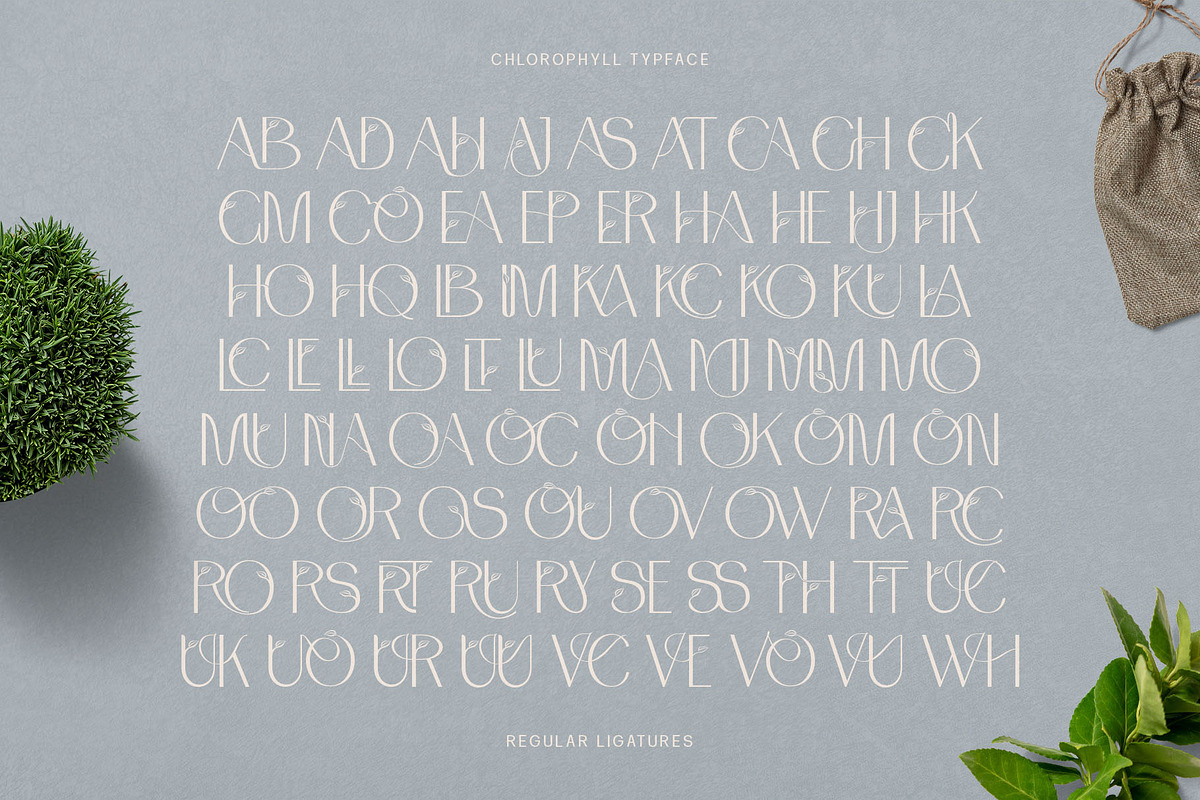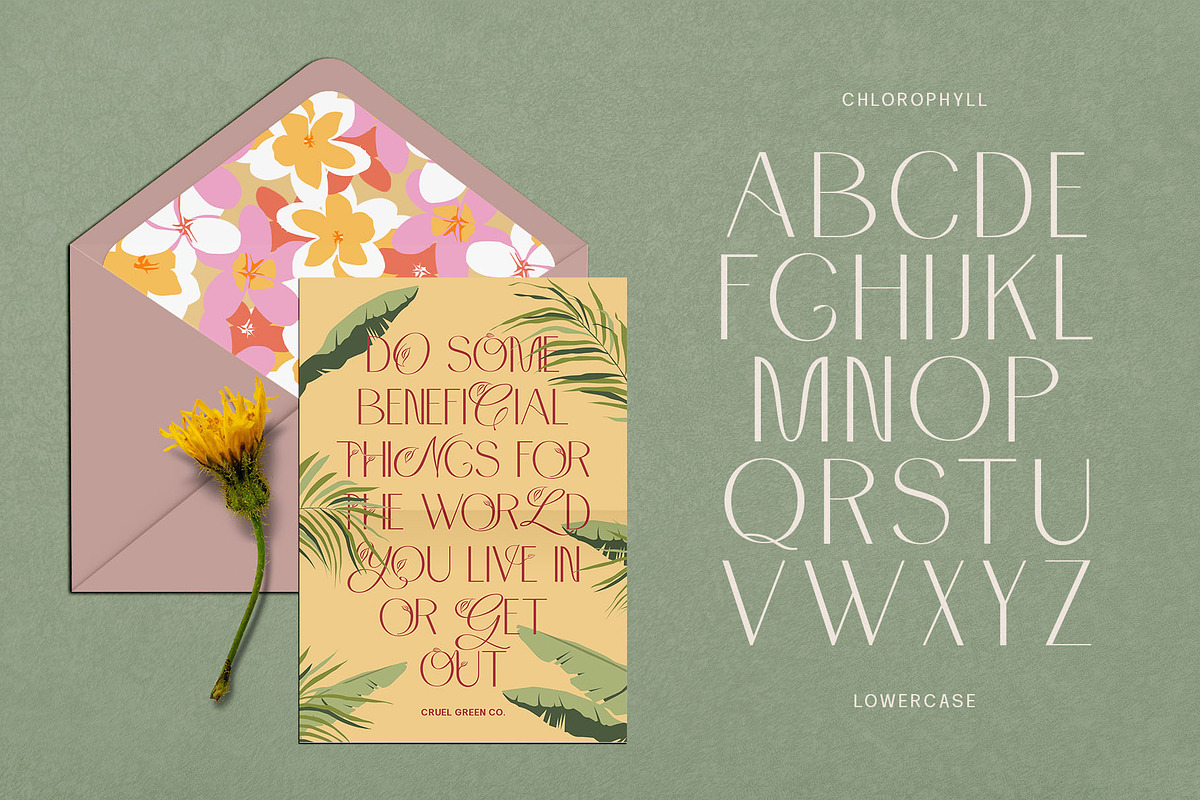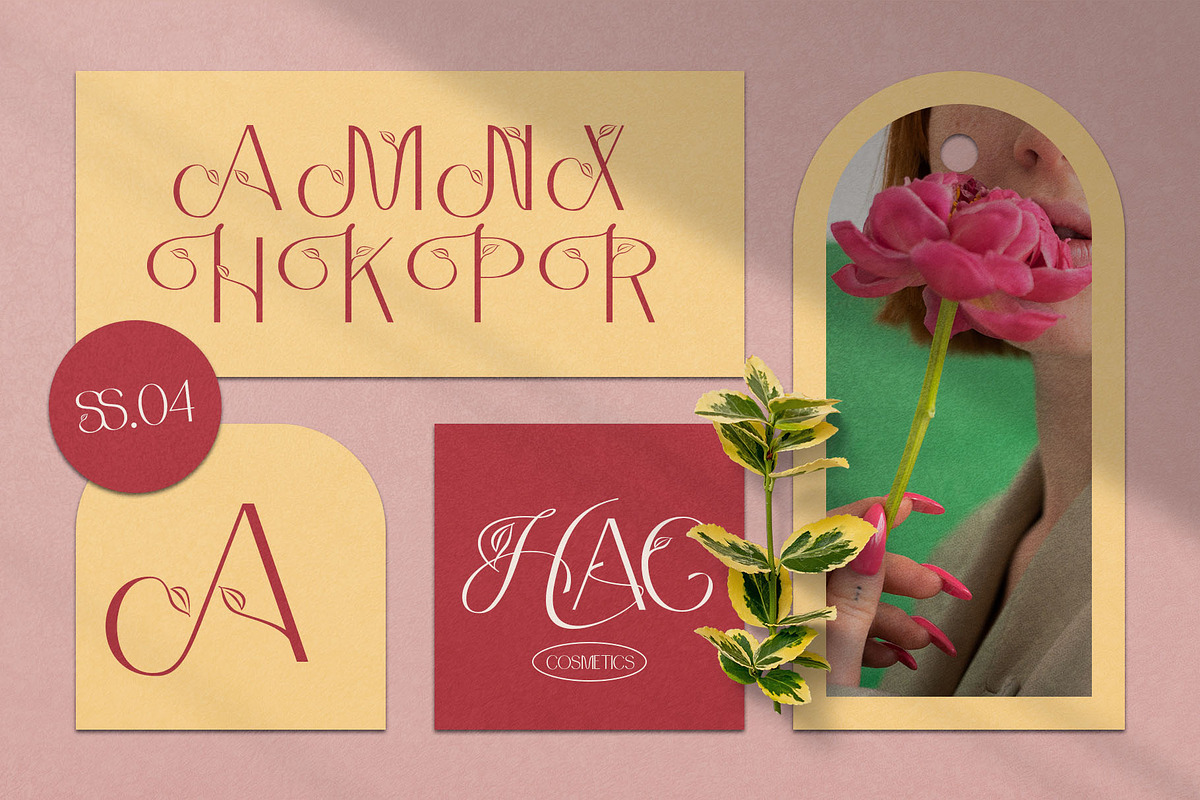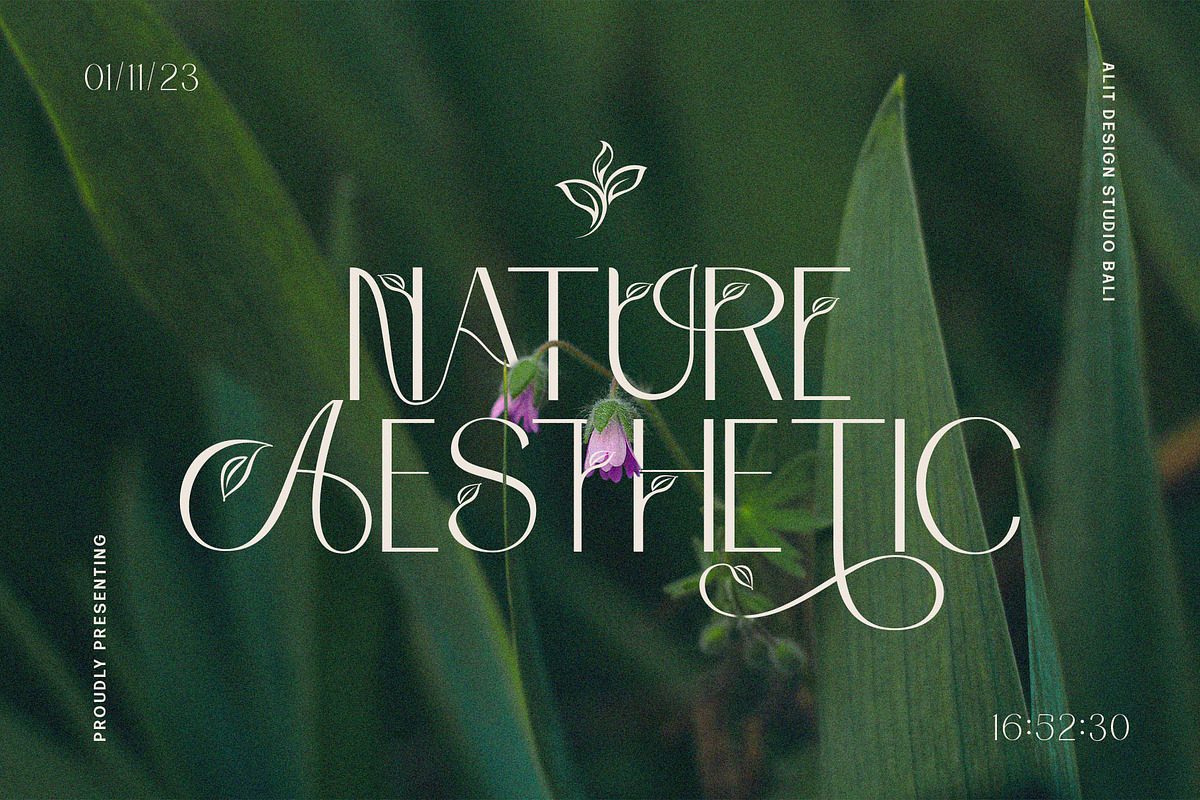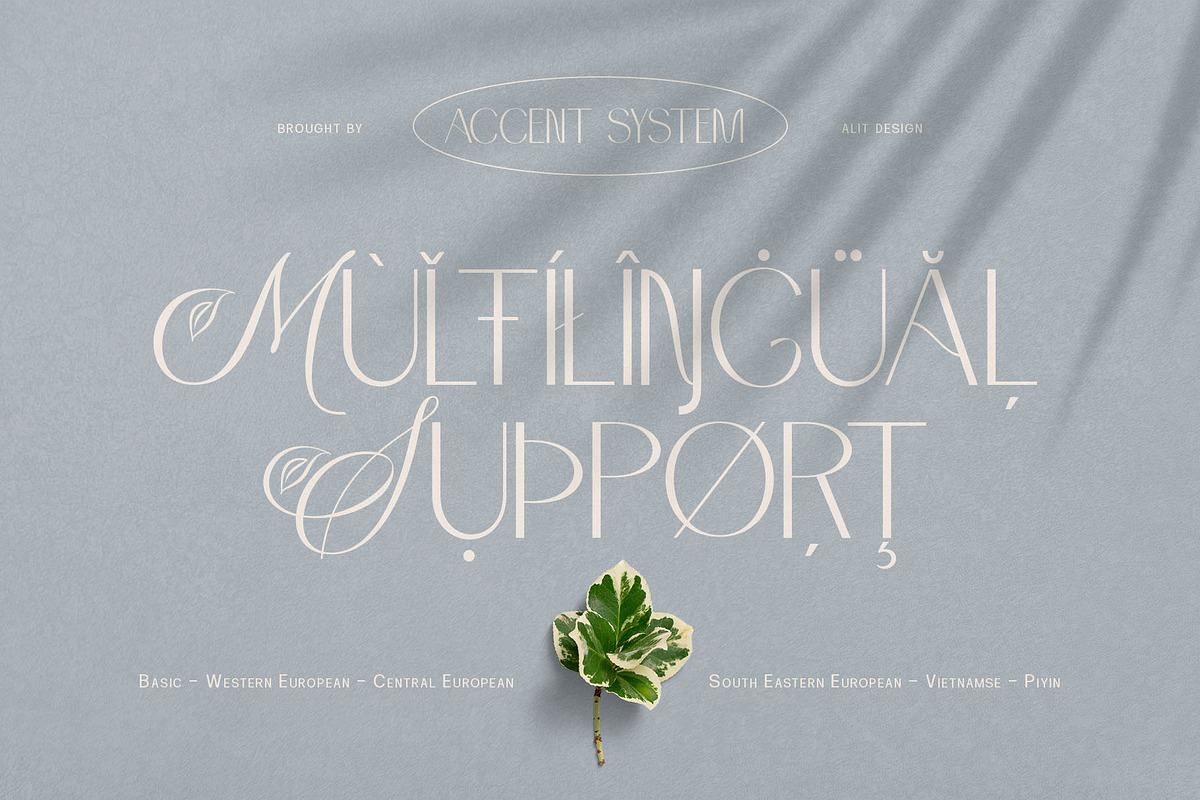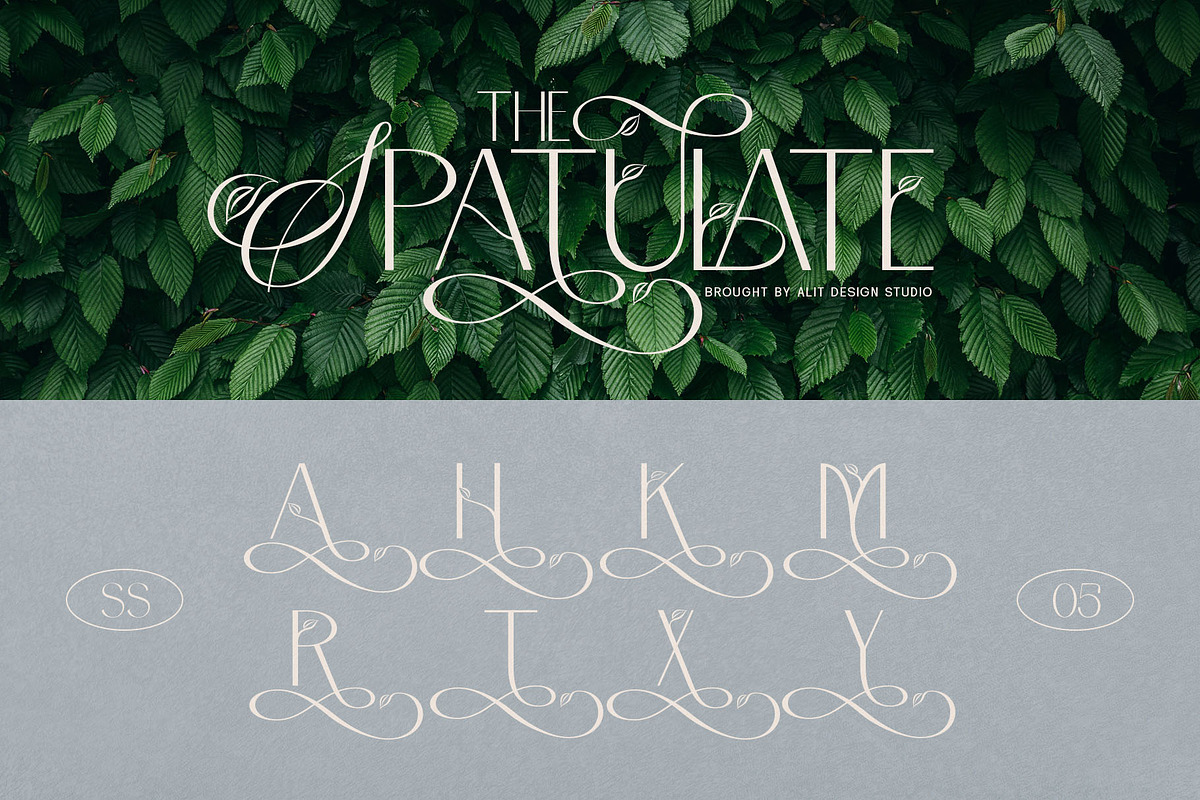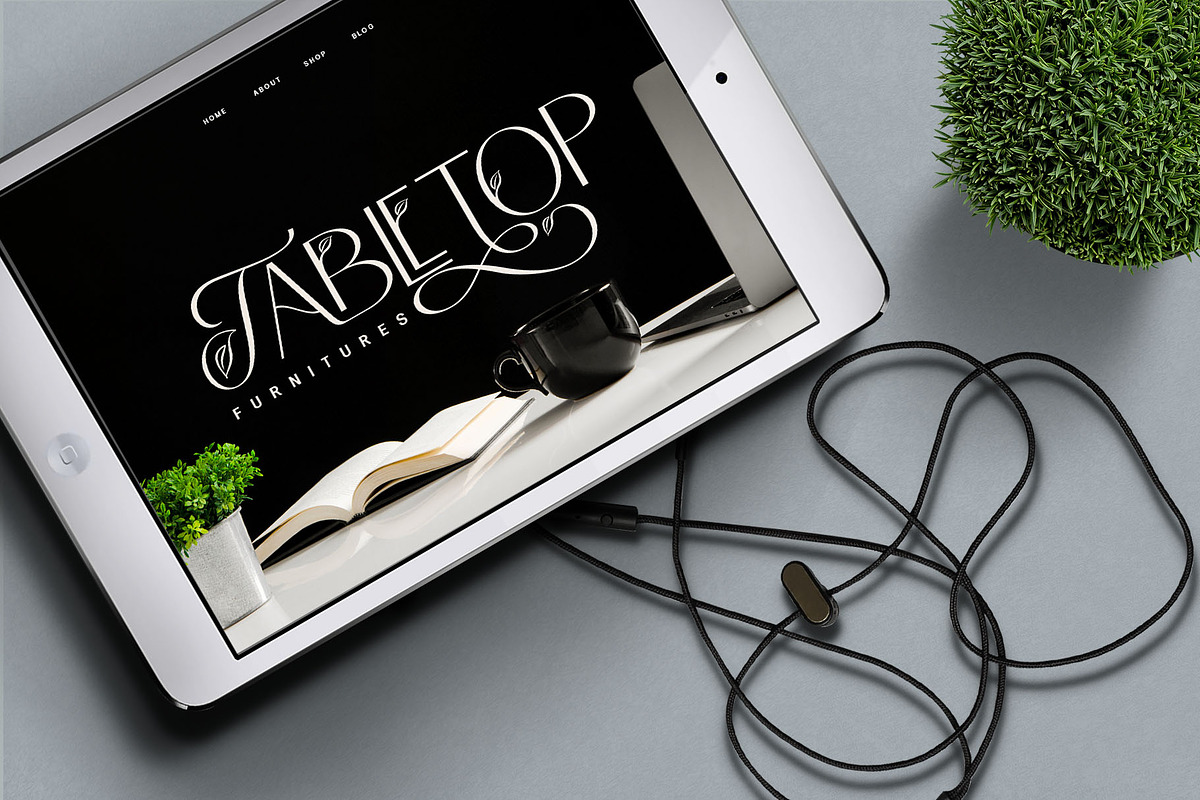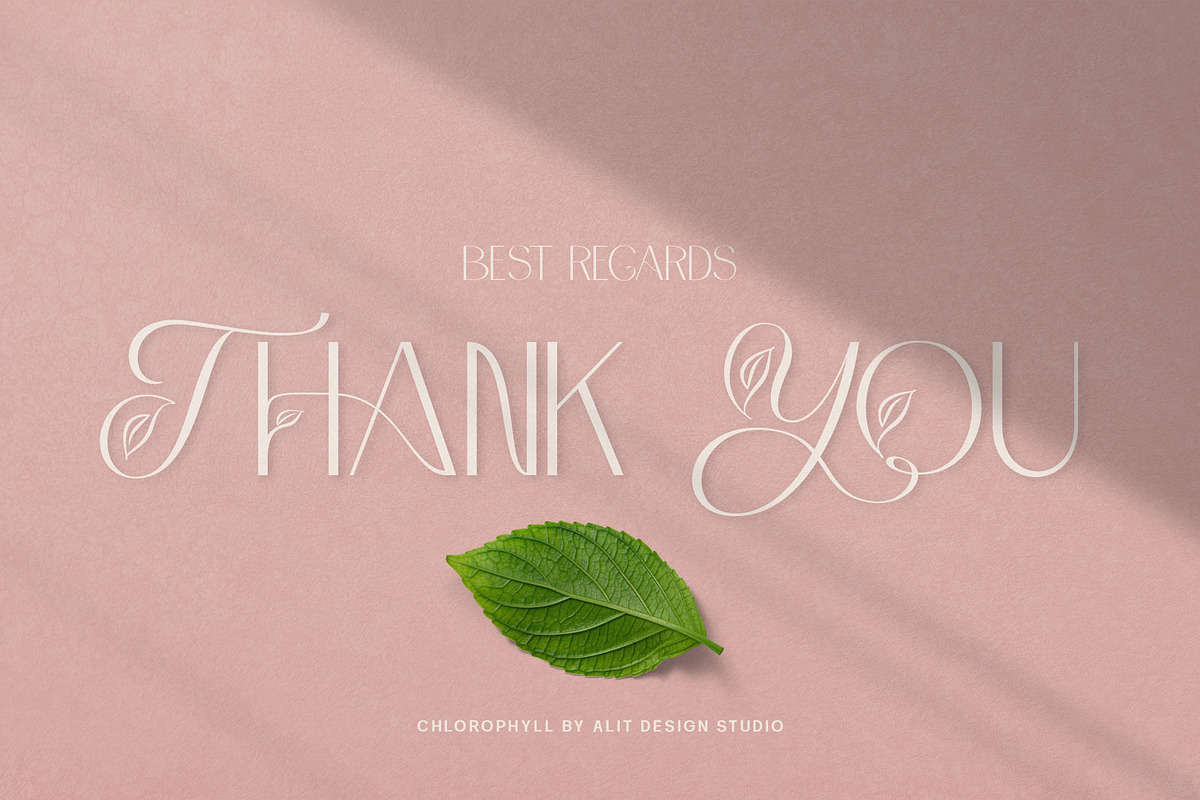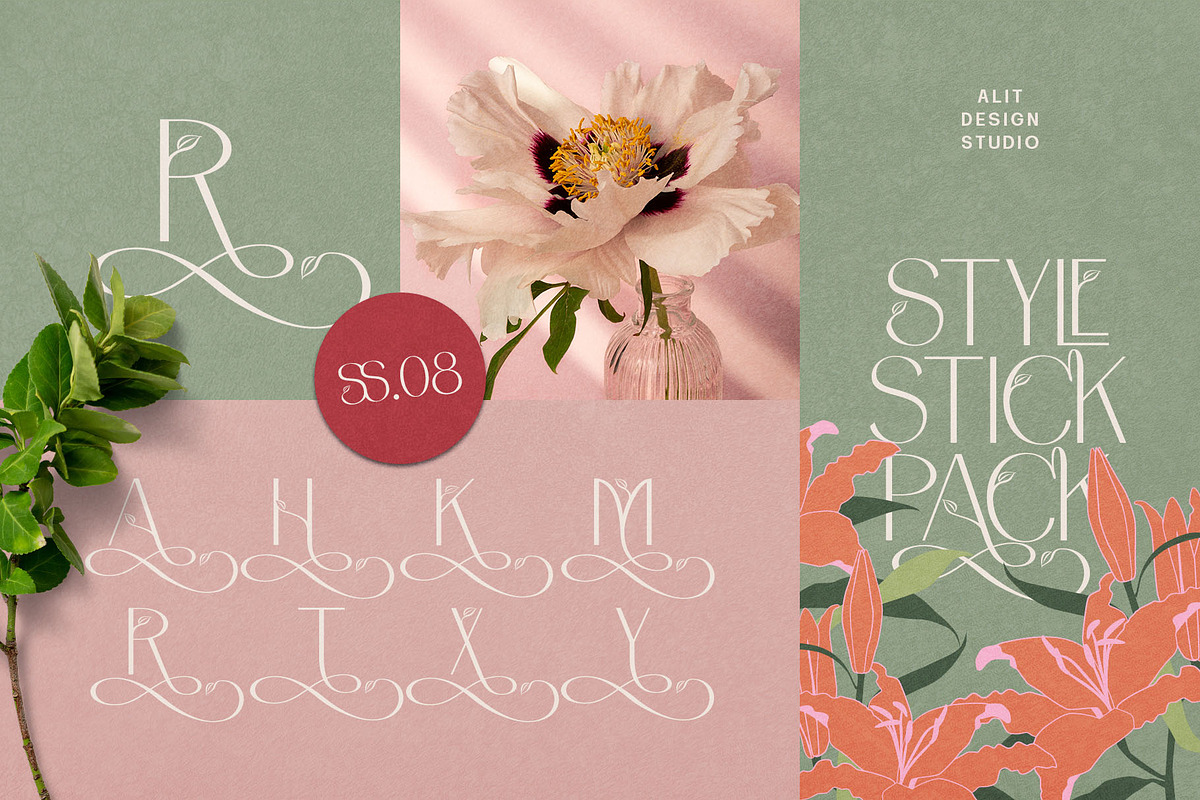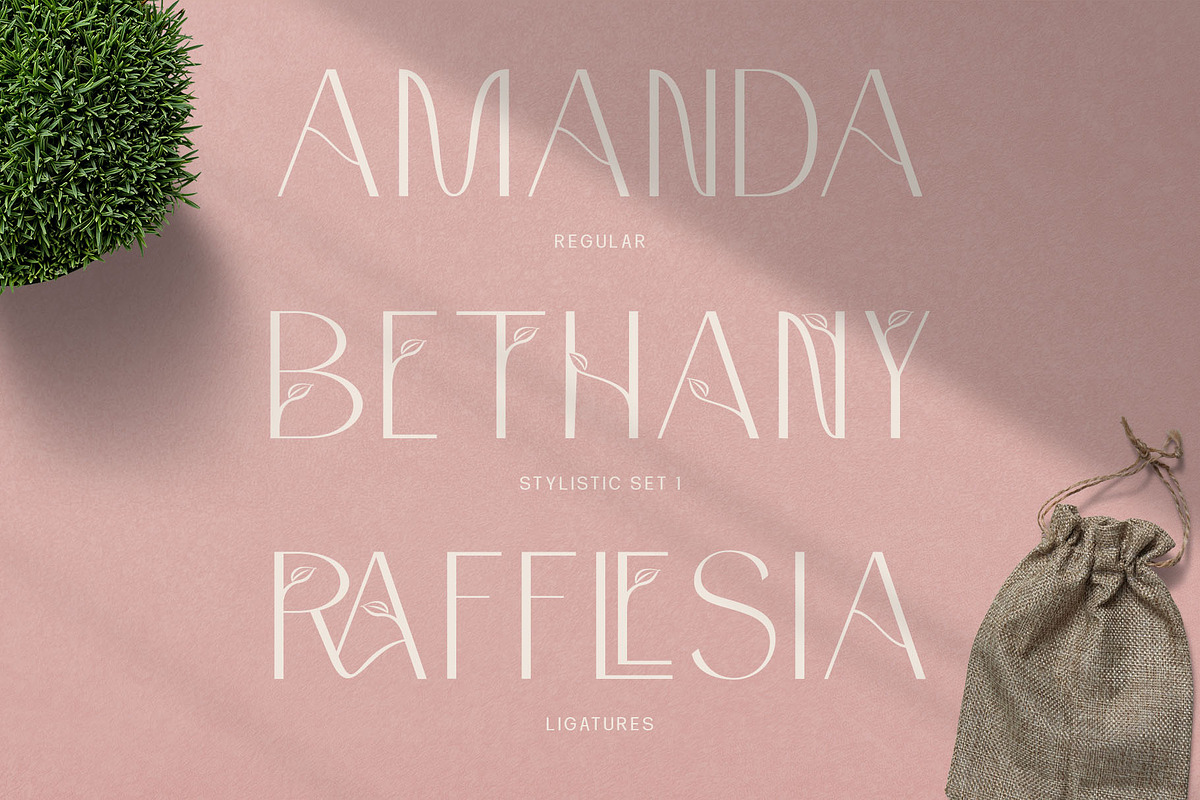
Chlorophyll Typeface
Introducing "Chlorophyll" - A Sans Serif Font with a Refreshing Natural Elegance
Unveil the beauty of nature in your design projects with "Chlorophyll," a stunning sans serif font that combines modern simplicity with the organic charm of leaf illustrations. This elegant typeface is designed to infuse your creations with a sense of natural harmony, making it perfect for a wide range of applications, from branding to packaging and beyond.
Sans Serif Sophistication: "Chlorophyll" boasts a clean and versatile sans serif style, making it ideal for both display and body text. Its balanced letterforms exude a sense of modern sophistication, ensuring legibility and impact in all your design endeavors.
Leafy Delight: With meticulously crafted leaf illustrations integrated into the font's characters, "Chlorophyll" embodies the spirit of the great outdoors. Each letter and symbol subtly incorporates the elegance of leaves, creating a seamless connection to the natural world.
Elegance in Simplicity: "Chlorophyll" captures the essence of natural beauty through its simplicity. This font is a testament to the idea that less is more, allowing your content to shine while adding a touch of eco-friendly charm.
Versatile Usage: Whether you're designing a logo for an eco-conscious brand, creating invitations for a garden wedding, or crafting a menu for a farm-to-table restaurant, "Chlorophyll" adapts effortlessly to diverse design projects. It's a versatile tool that can evoke a sense of elegance and sustainability in any context.
Extensive Character Set: "Chlorophyll" includes an extensive character set, encompassing uppercase and lowercase letters, numerals, punctuation, and a wide range of special characters. This ensures compatibility with multiple languages and enables you to express your message with clarity and grace.
Embrace the allure of nature and elevate your design projects with "Chlorophyll." This sans serif font, inspired by the beauty of leaves and the elegance of simplicity, brings a touch of the natural world to your creative endeavors. Elevate your designs, evoke a sense of harmony, and make a lasting impression with "Chlorophyll" today.